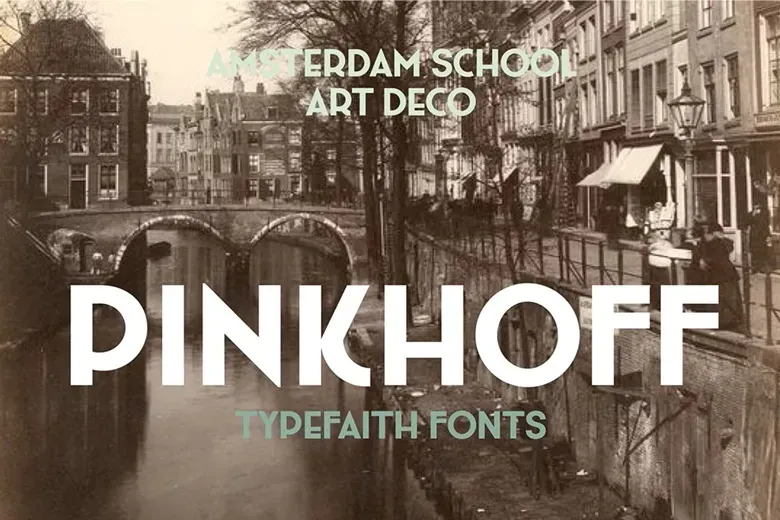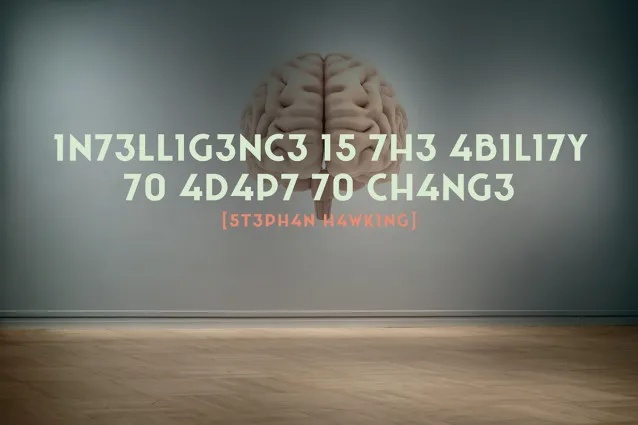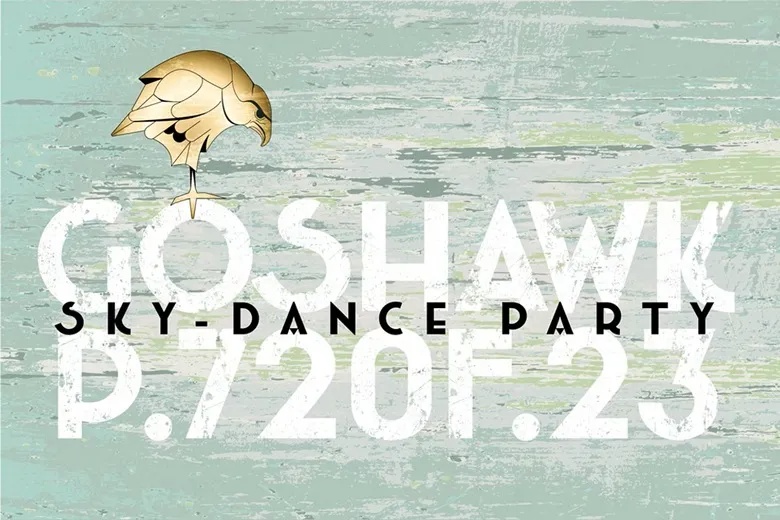
Pinkhoff Caps is a unique and beautiful font inspired by the Amsterdam School style, bringing to life the vibrant atmosphere of the roaring twenties and the subsequent challenges of the thirties. With its modern design, the font carries an art deco essence, infused with a touch of the 1930s, giving it a sense of class and sophistication. Designed by Leon Hulst, Pinkhoff Caps embodies a nostalgic yet ruinous aesthetic, which is highly fashionable in contemporary design, reflecting the allure of retro and vintage styles. The typography’s carefully crafted lines and numerals showcase the restrained charm of art deco, blending seamlessly with the new vintage appeal.
Pinkhoff Caps Display Font